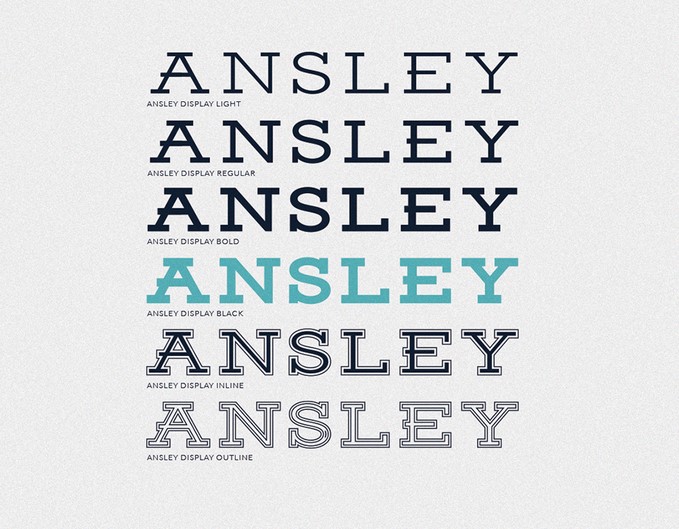
Ansley Display is a past and modern retro inspired display font I made when I couldn’t find many free retro typefaces. Free for commercial and personal use. Please appreciate and donate if you can.